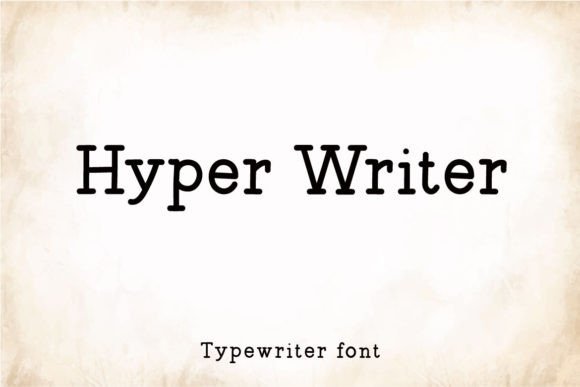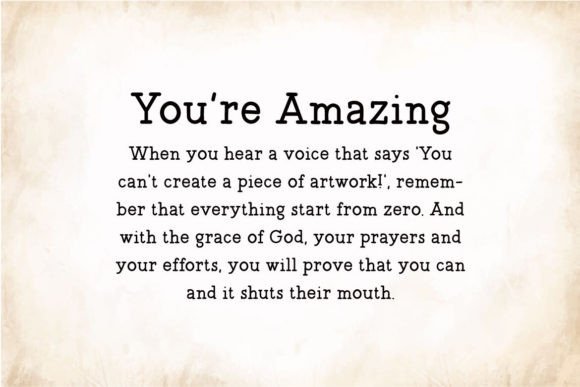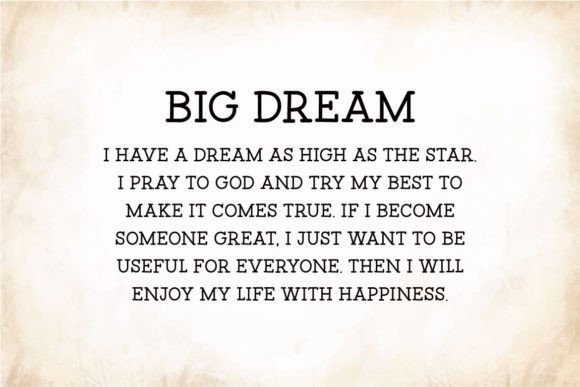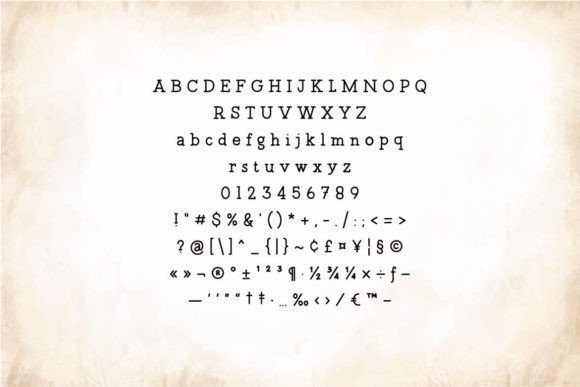
Hyper Writer Font: A Retro Typography for Vintage Designs & Cricut Crafts
About the Hyper Writer Font
Crafted with precision, the Hyper Writer Font is ready to bring your ideas to life. Hyper Writer font: A vintage typewriter-style typeface that brings the nostalgia of old-school typing to your designs. Add a touch of classic charm and a hint of literary flair with Hyper Writer.
Hyper Writer excels in headlines, short text blocks, and branding applications where a vintage aesthetic is desired. It works particularly well for projects evoking nostalgia, such as book covers, posters for literary events, or logos for cafes or bookstores. Avoid using it for body text or long paragraphs; its stylistic quirks hinder readability in extended use.
The font’s core personality is charming and slightly rebellious. It projects a sense of authenticity and history. Pairing it with a clean sans-serif like Open Sans for body copy creates a strong contrast, balancing the vintage feel with modern readability. Alternatively, a classic serif like Garamond provides a more traditional and sophisticated pairing.
For a more playful approach, consider pairing Hyper Writer with a script font like Pacifico, though this should be used sparingly to maintain visual balance and avoid clutter. Geometric sans-serif fonts are generally less suitable, as their starkness may clash with the organic nature of the typewriter style.
Hyper Writer Font Usage Examples
Hyper Writer Font Example